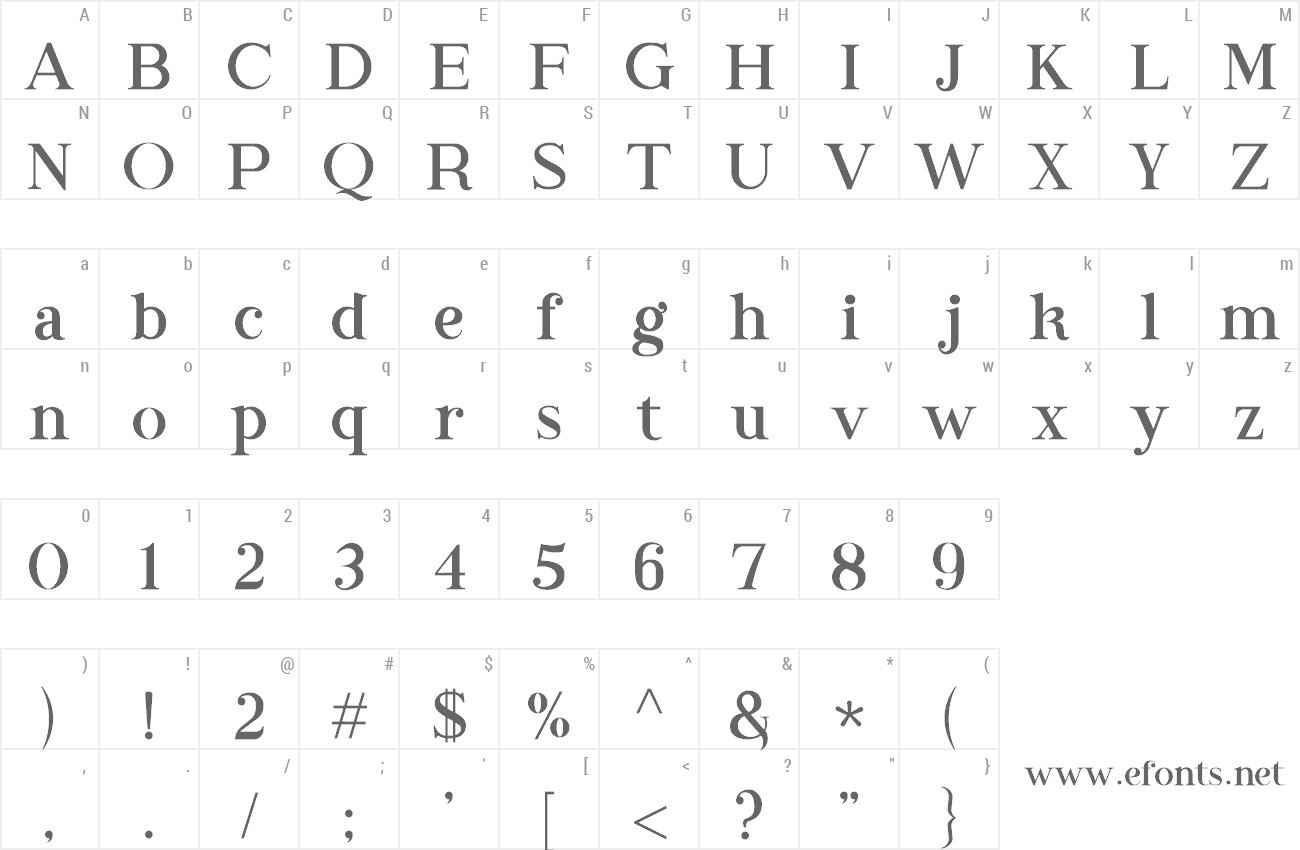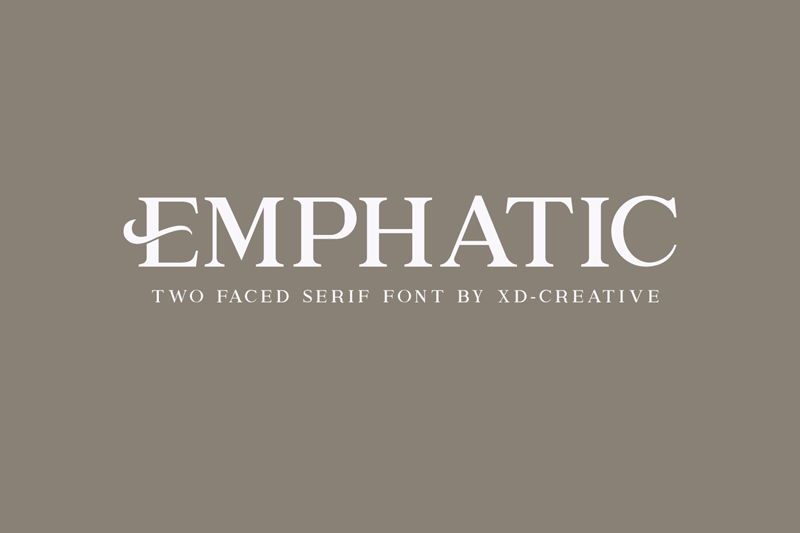
Preview and download Emphatic Font. Created by Faldy Kudo in Basic Serif styles with Free for personal use license.
NOTES: This is just for personal use only, in this version no special characters (alternates, ligature, swashes) and no multilingual support, to use all features and for commercial use please visit link https://www.creativefabrica.com/product/emphatic/ref/216322/ Emphatic is a simple, elegant and authentic serif font. It can easily be matched to an incredibly large set of projects, so add it to your creative ideas and notice how it makes them stand out! support and buy me a cup of coffee https://paypal.me/FadilAbdillah thank you |